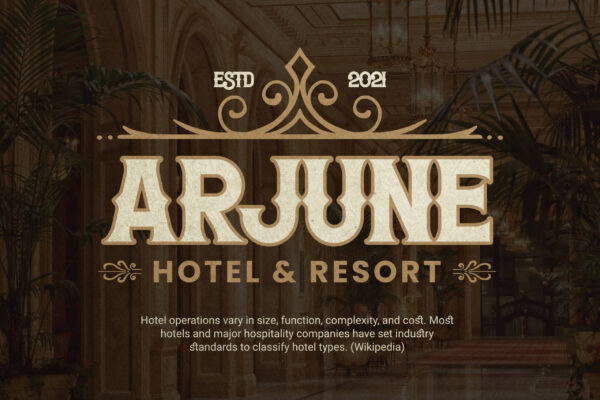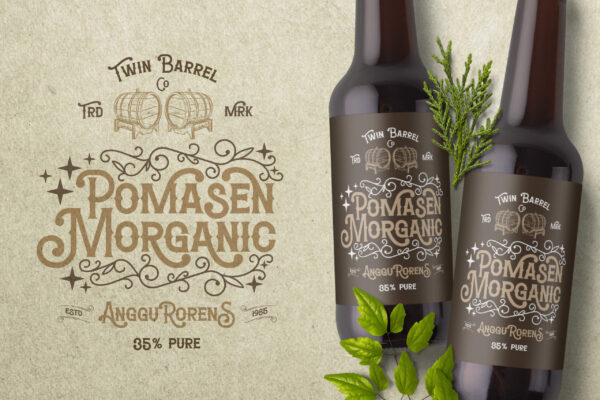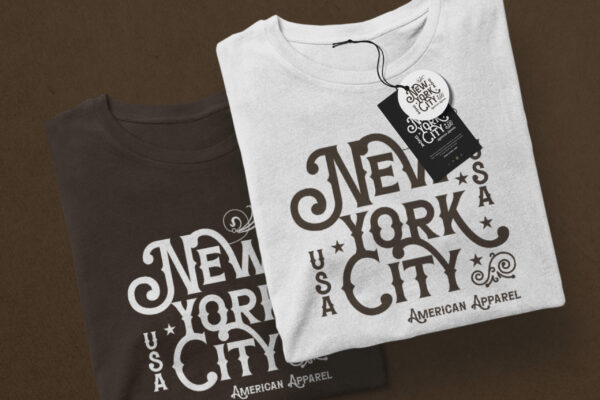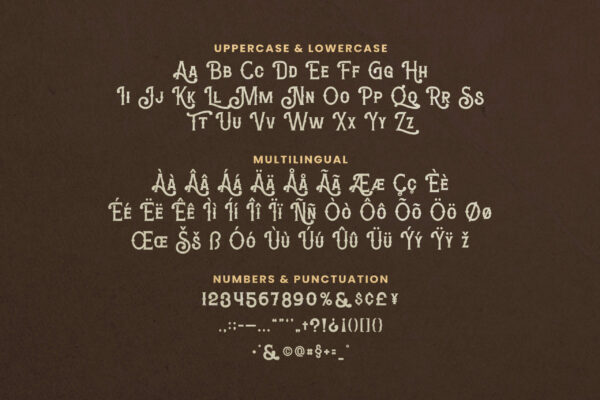
Mambality is a bold and elegant vintage display font inspired by classic sign painting and ornamental typography from the early 1900s. Its strong serifs, decorative swashes, and vintage flair make it the perfect choice for logos, headlines, apparel, and packaging that require a touch of nostalgia and charm. Each letterform carries intricate details that evoke sophistication and authenticity.
With multilingual support and a complete set of uppercase, lowercase, numerals, and punctuation, Mambality is both stylish and versatile. Whether you’re crafting whiskey labels, retro signage, or elegant hotel branding, this typeface provides timeless character and distinctive presence in every design.
Mambality